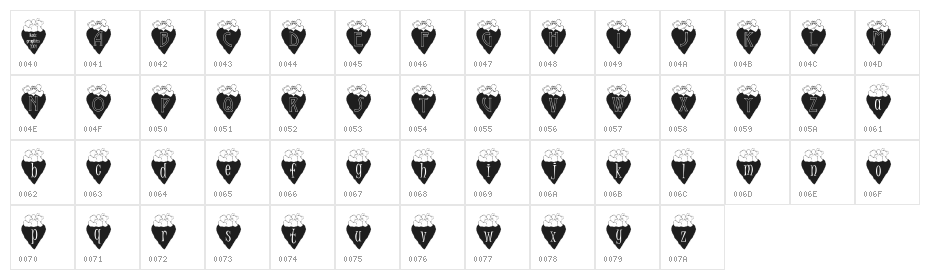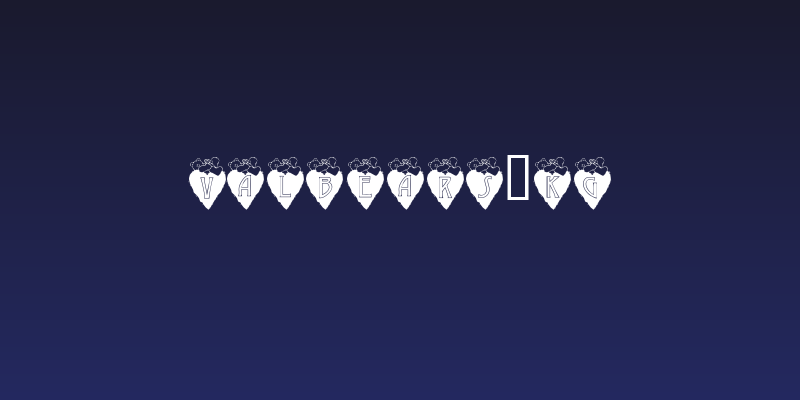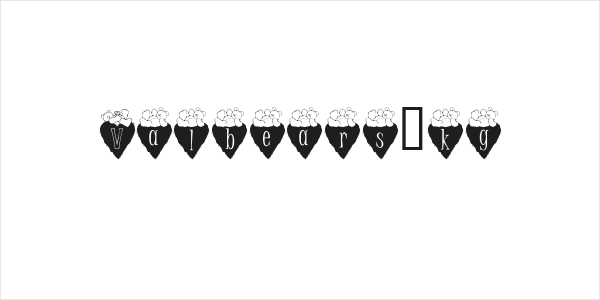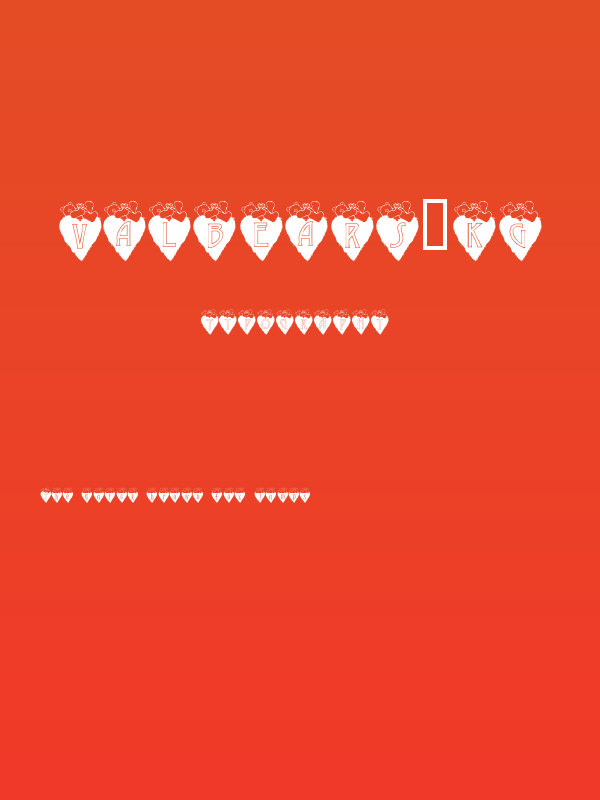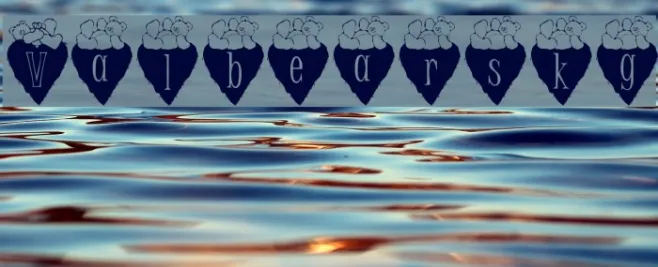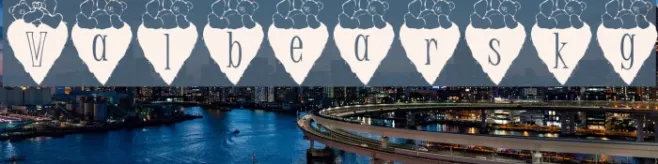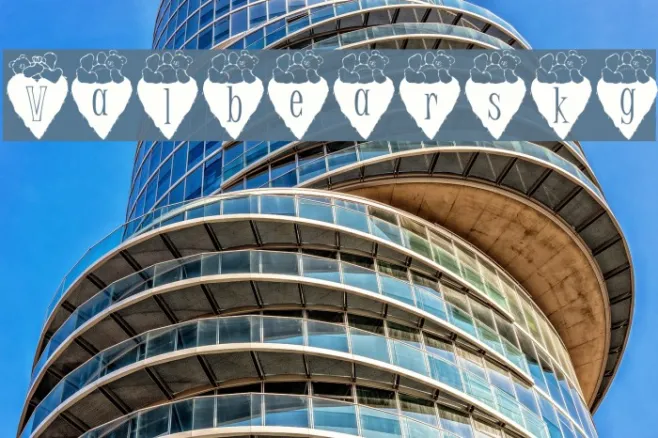
Valbears_kg Font
Valbears_kg Description
This playful and decorative font features each character encased within a heart shape, topped with a whimsical bear design. The letters themselves are bold and clear, providing a strong contrast against the intricate heart and bear motif. This unique style combines a sense of fun with a touch of elegance, making it stand out in any design. The font maintains a consistent weight and width across all characters, ensuring readability while adding a charming visual element. The heart and bear design adds a layer of creativity, making it ideal for projects that require a distinctive and memorable typeface.
| Overall Style | Playful, Decorative |
| Proposed Projects | Ideal for children's books, playful branding, greeting cards, and themed event invitations. |